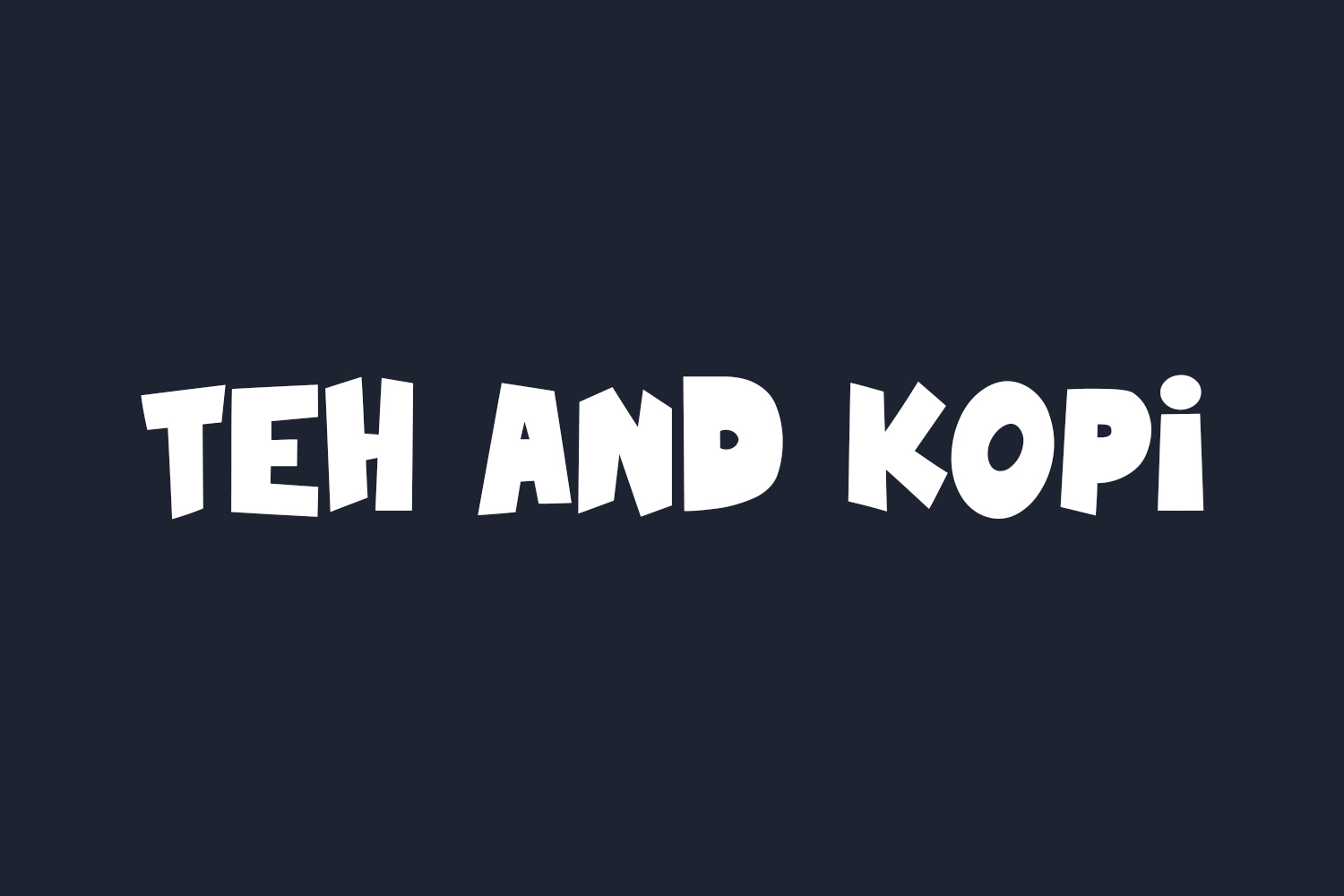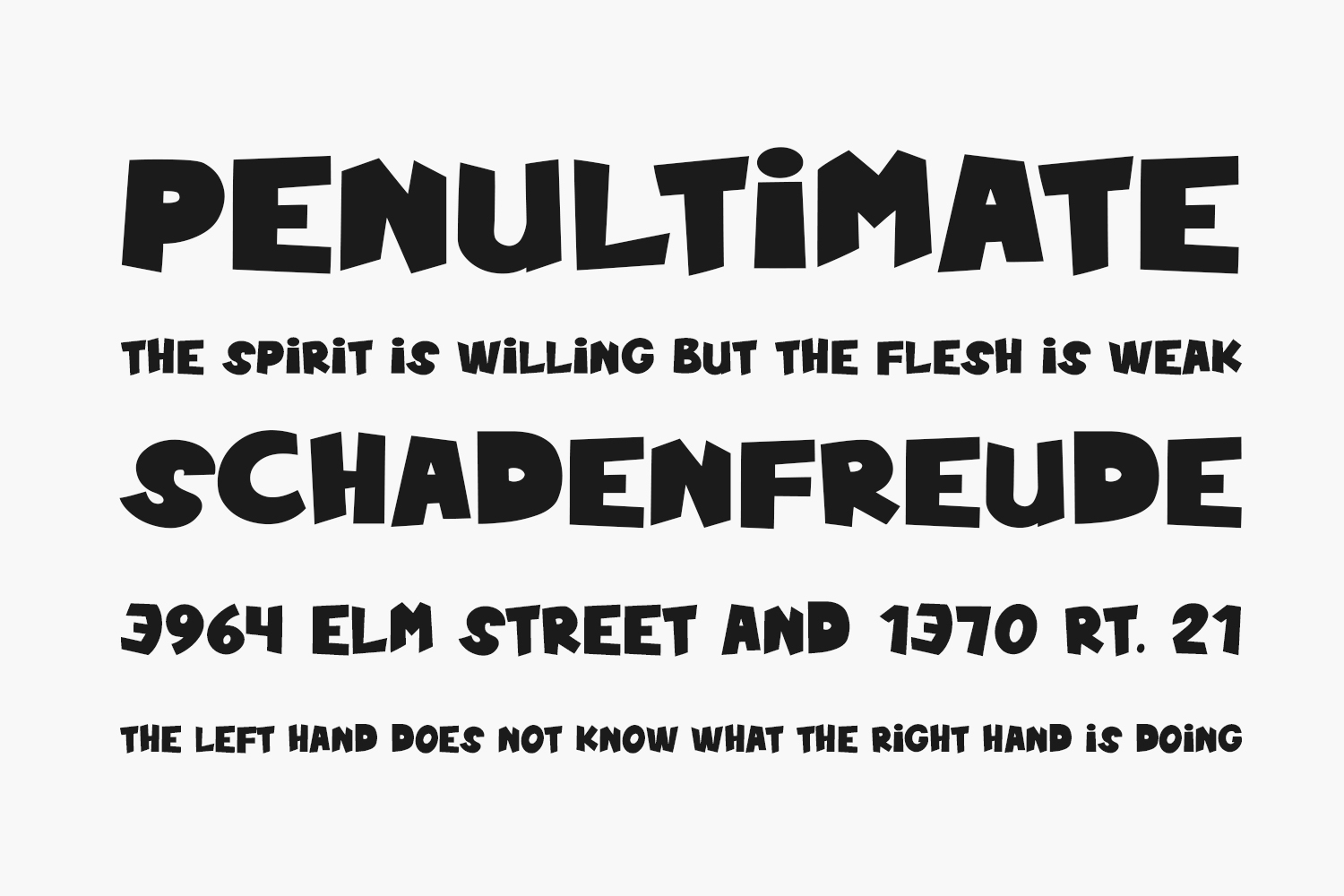
Teh And Kopi Free Font presents a delightful and enchanting display font choice. With its whimsical and slightly eccentric appeal, this font has the ability to infuse charm into any design. Embrace it with confidence in your projects, and prepare to be enamored by the outcome. Download the font for free if you need it for personal use or purchase the full version for commercial use. Download the font for free if you need it for personal use or purchase the full version for commercial use.
Designed by Tigadestd